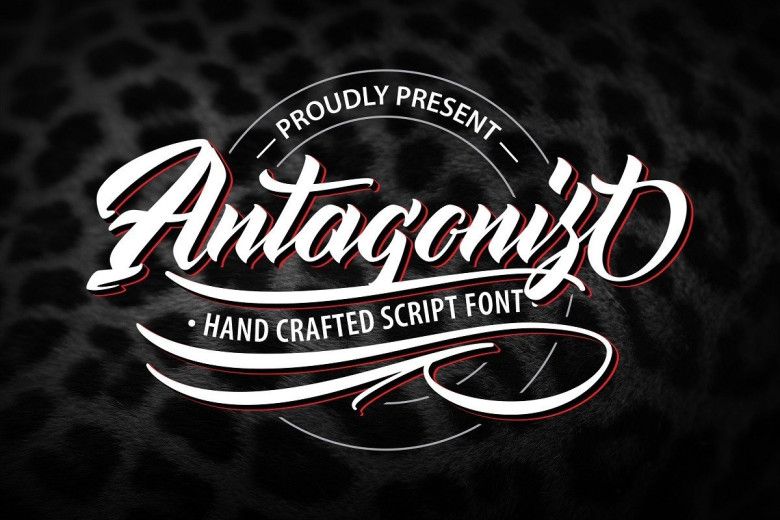
Antagonist Hand Crafted Script Font
Antagonist Hand Crafted Script Font is a modern script font. It includes round shapes which gives it an elegant, modern, yet natural feel. It’s suitable for logos, branding, magazines, posters, stationery designs, business cards, and more.